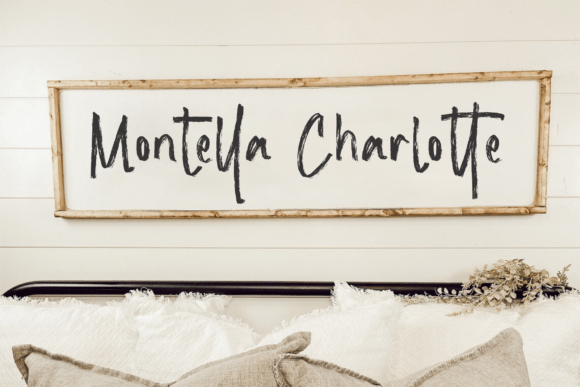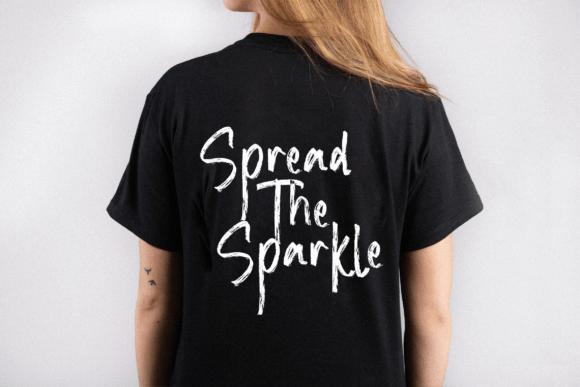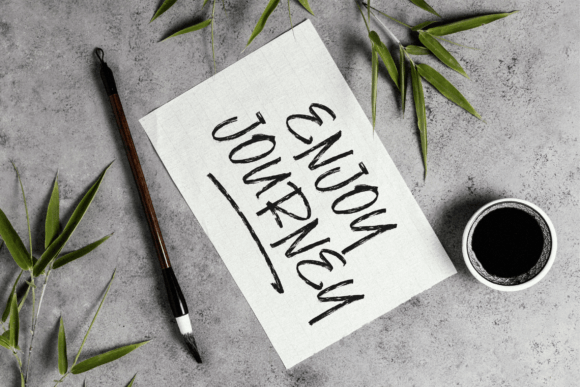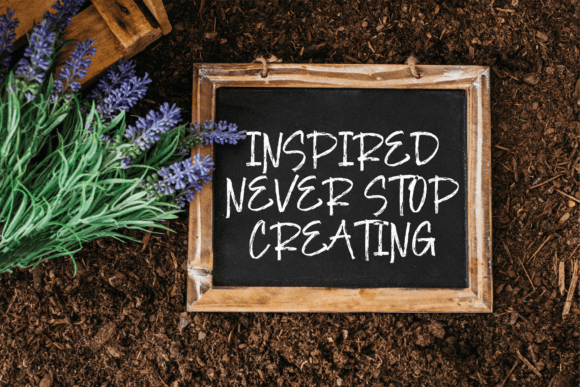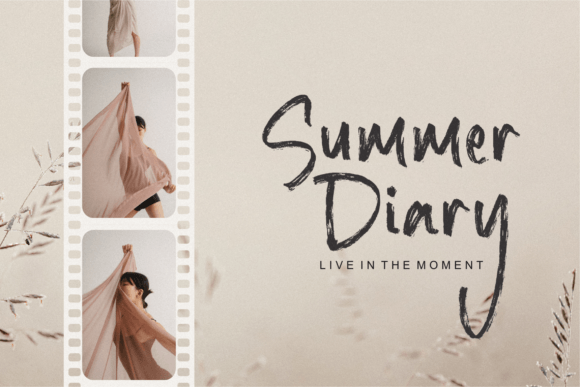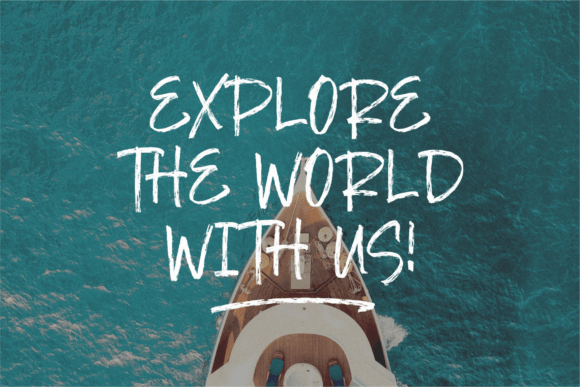
Introduction to Bait Pertama Font
Introducing Bait Pertama – a breathtaking handwritten brush font.
Perfectly suited for a myriad of purposes including product packaging or personal branding initiatives, this adaptable typeface shines in all scenarios It authentically embodies the organic depth of a physical brush, thereby offering a unique twist to your creative endeavors.
Key Features of Bait Pertama Font